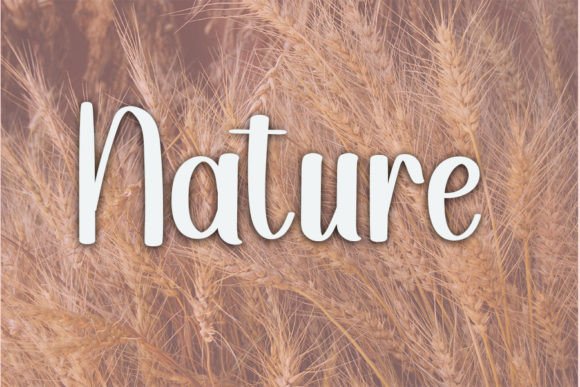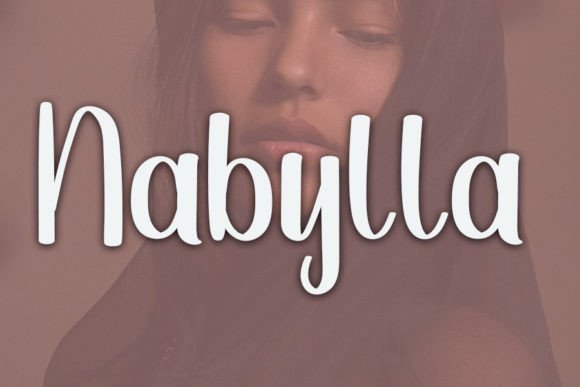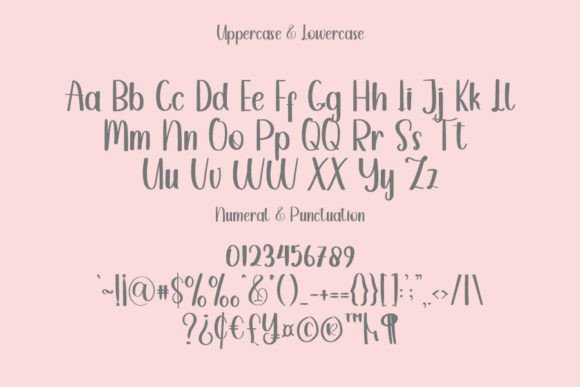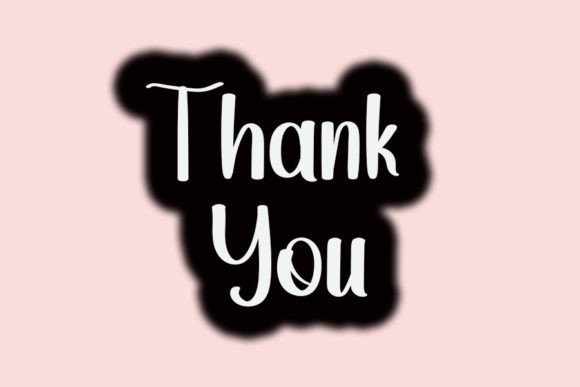
The Cheeper Font: A Modern Calligraphy Dream Come True
Have you ever been in the middle of a design project, pouring your heart and soul into it, only to realize that the perfect font is missing? I certainly have. It was one of those moments when I was working on a branding project for a client who wanted a elegant, yet modern feel. The client was specific about wanting a handwritten font that exuded a sense of sophistication and balance. After scouring through numerous font libraries, I stumbled upon the Cheeper font, and it was love at first sight! 💕
An Honest Review of Cheeper Font
What I Love About Cheeper Font
- ✨ Balanced and varied: The Cheeper font strikes the perfect balance between being too thin and too thick. It’s versatile and can be used for a variety of design projects.
- ✅ Modern vibe: The font has a modern feel to it, making it perfect for contemporary design projects.
- 💯 Inspired by classic calligraphy: The Cheeper font takes inspiration from traditional calligraphy, giving it an elegant and sophisticated feel.
- 🎨 Spotless form: The font has a clean and spotless form, making it easy to read and understand.
While the Cheeper font is amazing, there are a few quirks to be aware of: 🤔
- ⚠️ Limited use in very small sizes: Like many handwritten fonts, Cheeper may not be the best choice for very small font sizes, as some details may get lost.
- ⚠️ Some letters may require manual kerning: Depending on the design project, some letters may require manual kerning to achieve the perfect spacing.
The Backstory of Cheeper Font
The Cheeper font was designed by a team of typographers who wanted to create a modern calligraphy font that was both elegant and balanced. Inspired by traditional calligraphy, the team aimed to create a font that was versatile and easy to read. After months of research and design, the Cheeper font was born. 💫
Q: What is the Cheeper font best used for?
A: The Cheeper font is best used for designs that require a modern and elegant feel, such as branding, packaging, and advertising.
Q: Is the Cheeper font suitable for body text?
A: While the Cheeper font is beautiful, it’s best used for headings and titles. For body text, a more traditional font may be more suitable.
Q: Is the Cheeper font available in different weights?
A: The Cheeper font comes in a single weight, but it’s designed to be versatile and can be used for a variety of design projects.